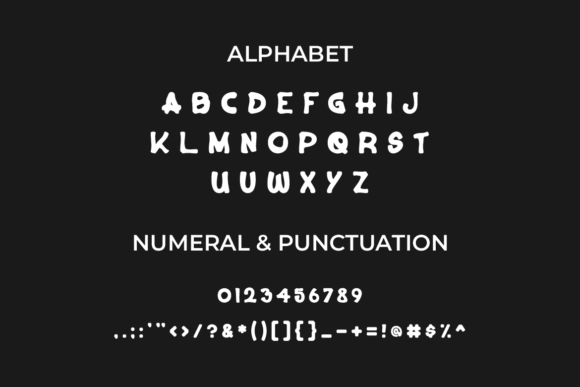
Introduction to Sanget Font
Do you remember that moment when you’re working on a creative project and you need that one special element to make it pop? For designers, it’s often the font that can elevate a design from good to great. And that’s exactly what Sanget Font is designed to do – add a touch of fun and uniqueness to your projects.
Sanget Font is a high-quality display font that’s perfect for designers who want to add a bit of personality to their designs. With its transparent background and sleek design, it’s a valuable resource for any creative project. Whether you’re working on a logo, a poster, or a website, Sanget Font is sure to bring a smile to your face and make your design stand out.
Key Features of Sanget Font
- Unique characteristics: elegant, modern, and sophisticated design aesthetic
Honest Review: Sanget Font
I recently stumbled upon the Sanget Font, and I must say it’s a great addition to any designer’s toolkit. As a design resource, it offers a high quality and unique aesthetic that can elevate a creative project to the next level.
One of the things that stands out about Sanget Font is its versatility. It comes with a transparent background, making it easy to customize and use in a variety of designs. This feature alone makes it a valuable asset for any designer.
Here are some things that work well about Sanget Font:
- Unique and creative design that adds a personal touch to any project
- High quality and crisp font that prints well
- Easy to use and customize with a transparent background
- Some characters may be missing or not compatible with certain software
Overall, I’m impressed with the Sanget Font and would recommend it to anyone looking for a unique and high-quality design resource. It’s a great addition to any designer’s toolkit and can add a creative touch to any project. ⭐️⭐️⭐️⭐️⭐️
Sanget Font
The Sanget Font is perfect for a variety of creative projects, including: